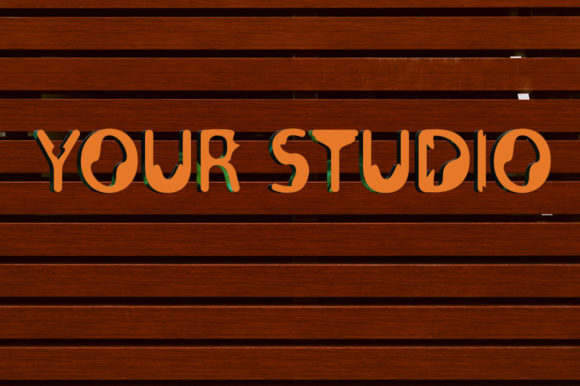
Discover the Charm of Barben Font: Elevate Your Designs with a Touch of Whimsy
In the world of typography, fonts play a pivotal role in bringing designs to life. Among the myriad of fonts available, the Barben font stands out for its unique charm and versatility. This soft, display font is not just a typeface; it’s an expression of fun and romance, capable of transforming any design project into something truly special. Whether you’re a designer looking for that perfect aesthetic or a crafter aiming to add a personal touch to your creations, Barben font is an excellent choice.
The Essence of Barben Font
Barben is a unique display font that exudes a soft, romantic feel. Its distinctive characters are designed to add a whimsical touch to any project, making it perfect for designs that require a bit of personality. The font’s versatility is one of its most appealing features; it can seamlessly fit into various design concepts, from modern and minimalist to vintage and playful.
Uses of Barben Font
The applications of Barben font are vast and varied. Here are some popular ways designers and crafters are using this delightful font:
- T-Shirts and Apparel: Add a fun and romantic quote or phrase to t-shirts, hoodies, or any apparel item. The soft texture of Barben font ensures that the design feels both stylish and comfortable.
- Car Decorations: Personalize car decals, stickers, or interior decorations with Barben font for a unique and eye-catching look.
- Award Certificates: Give your certificates a personalized touch with Barben font. It’s perfect for creating a warm and memorable recognition.
- Cup Labels and Packaging: Make your product labels stand out with the charming feel of Barben font. It’s ideal for branding, especially for businesses that want to convey a friendly and approachable image.
- DIY Projects and Crafts: From scrapbooking to crafting personalized gifts, Barben font can add a beautiful, handmade feel to your projects.
Why Choose Barben Font?
There are several reasons why Barben font should be your go-to choice for your next design project:
- Unique Aesthetic: Barben offers a distinctive look that can set your designs apart from the crowd.
- Versatility: Its soft and romantic feel makes it suitable for a wide range of projects and themes.
- Ease of Use: Designed to be user-friendly, Barben font can be easily integrated into various design software.
- Emotional Connection: The font’s whimsical nature can help create an emotional connection with your audience, making your designs more memorable.
Tips for Using Barben Font Effectively
To maximize the impact of Barben font in your designs, consider the following tips:
- Pair with Complementary Fonts: Combine Barben font with simpler fonts for a balanced look, especially in mixed-font designs.
- Play with Colors: The softness of Barben font pairs well with pastel colors, but don’t be afraid to experiment with contrasting colors for a bold statement.
- Consider the Context: Ensure that the whimsical nature of Barben font aligns with the message and tone of your project.
Barben font is more than just a typeface; it’s a design element that can bring a unique blend of fun and romance to your projects. Its versatility, aesthetic appeal, and emotional resonance make it an excellent choice for designers and crafters looking to add a personal touch to their work. Whether you’re creating apparel, decorations, certificates, or any other design project, Barben font is sure to elevate your designs and leave a lasting impression.